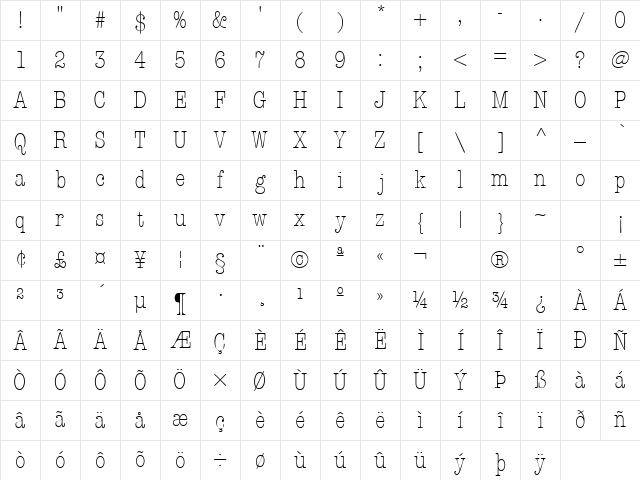
Design Context for KeyboardLightCondSSK
KeyboardLightCondSSK is a composed and adaptable typeface that performs quietly and consistently across a wide range of design contexts. Its slender proportions lend an understated elegance to any composition. Its narrow stance lets it pack a punch even in space-constrained designs.